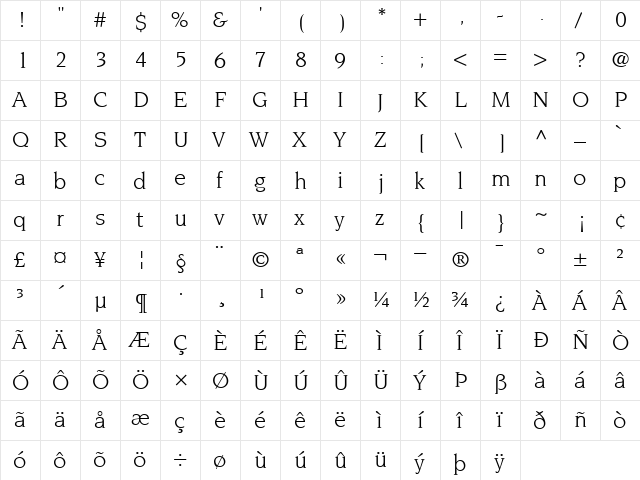
ITCNovarese-Book Book Font Preview
ITCNovarese-Book Book
Design Context for ITCNovarese-Book Typeface
ITCNovarese-Book offers clean, dependable letterforms without strong stylistic allegiance, making it a practical choice for designers who need flexibility.